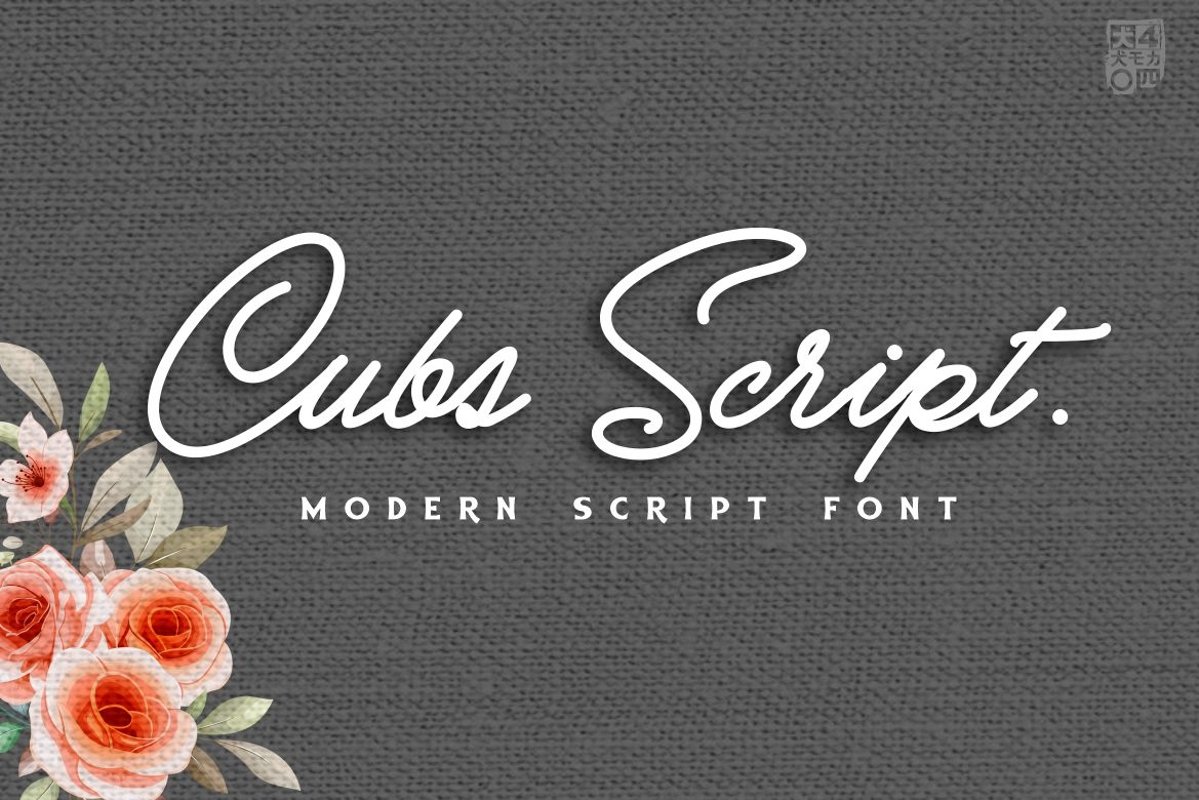
Cubs Script
CubsScript
Cubs Script Great modern Script light with girly rounded unique glyphs, playfull will look so good on your Signature, Logos , poster, Blog, Website,Books, tshirt and any other fun projects you are working on.
• Unique glyphs
• Multilingual Characters
• UPPERCASE
• Numeric
• Symbol
• Punctuation Character